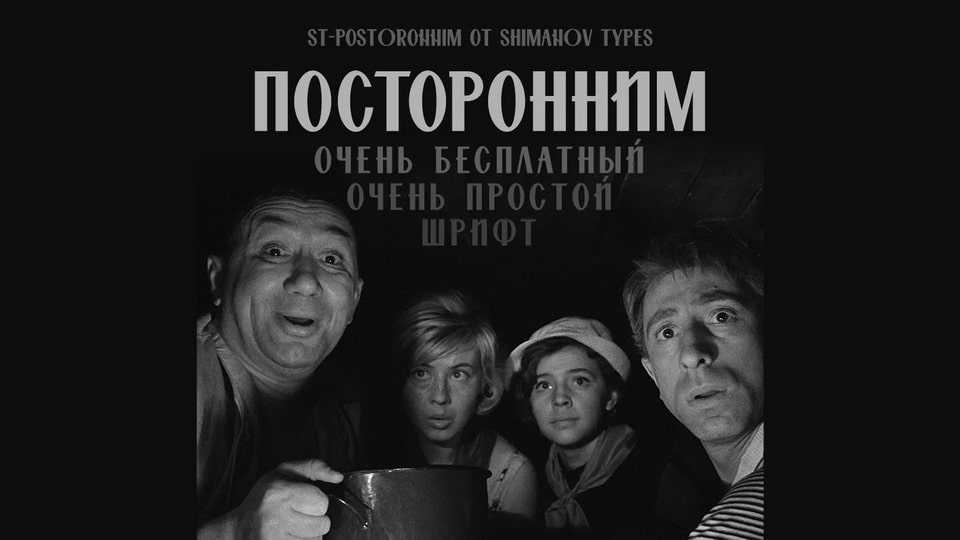
Download ST-Postoronnim font, a very simple display typeface, a replica of Soviet cinema titles. Great for posters, headlines, and projects that need an impact look and retro vibe.
Designer: Alexander Shimanov